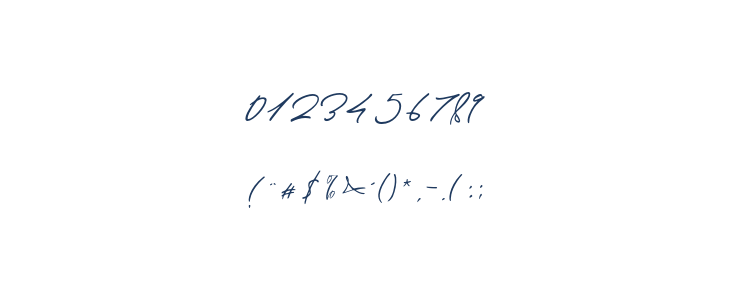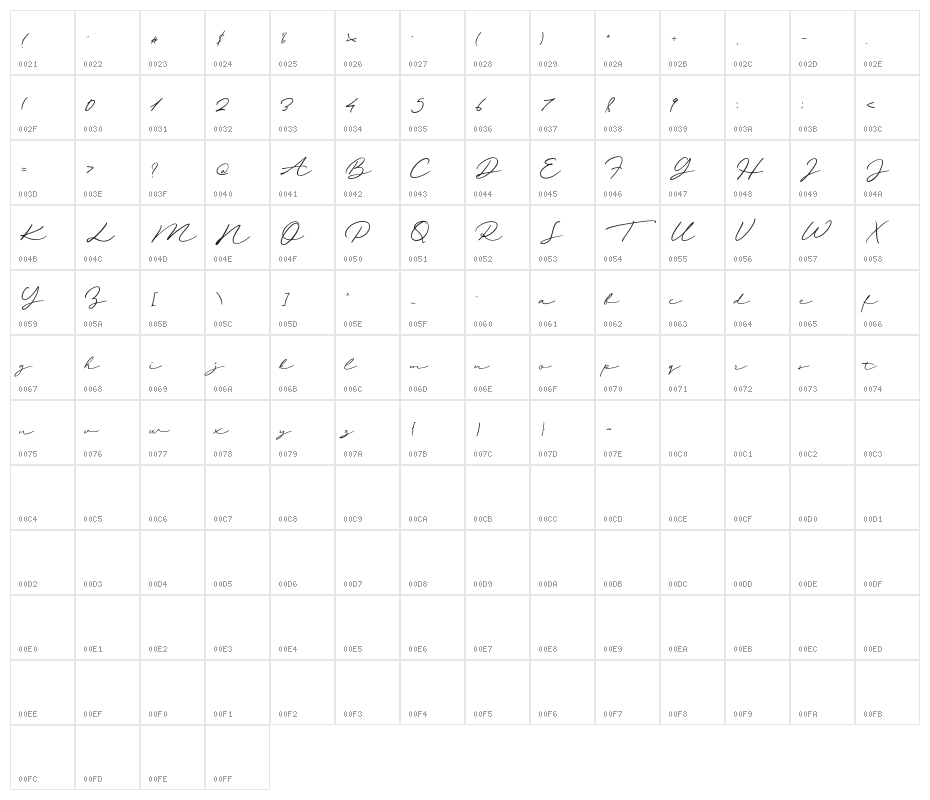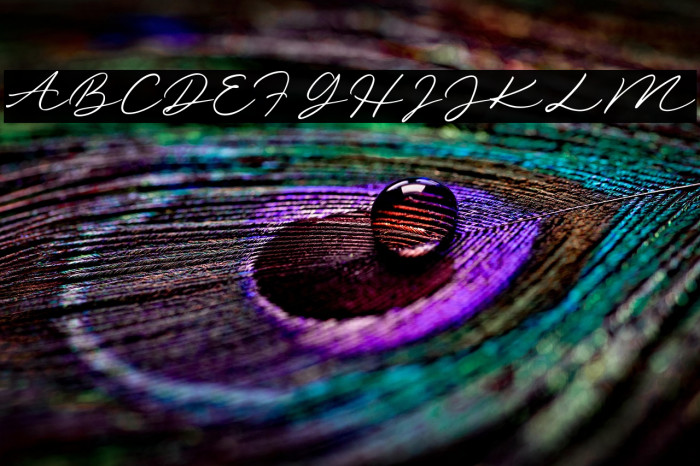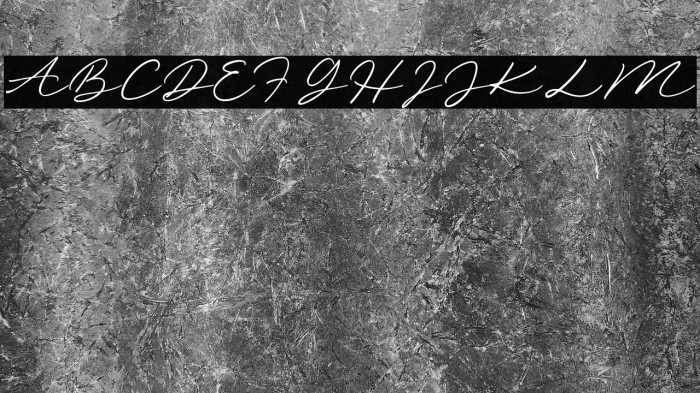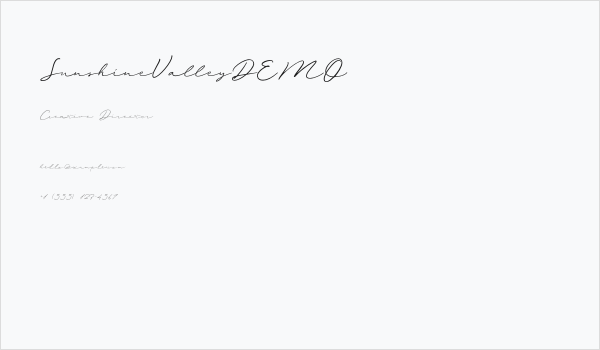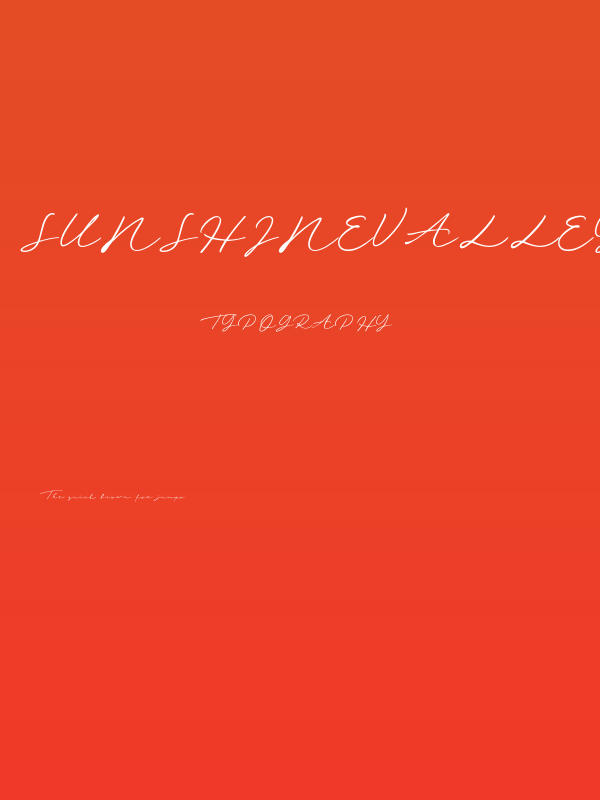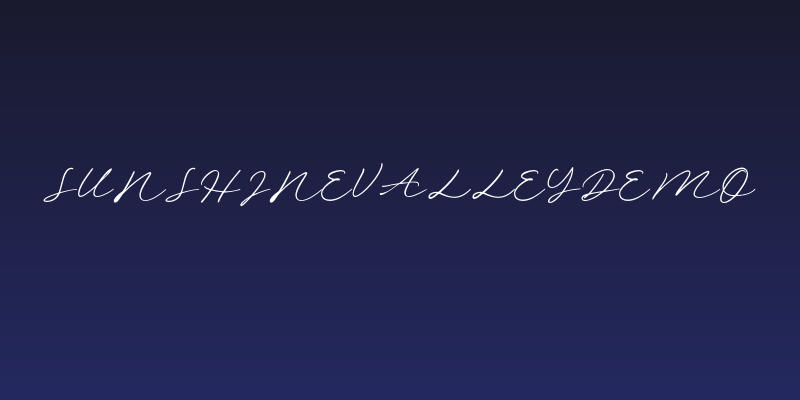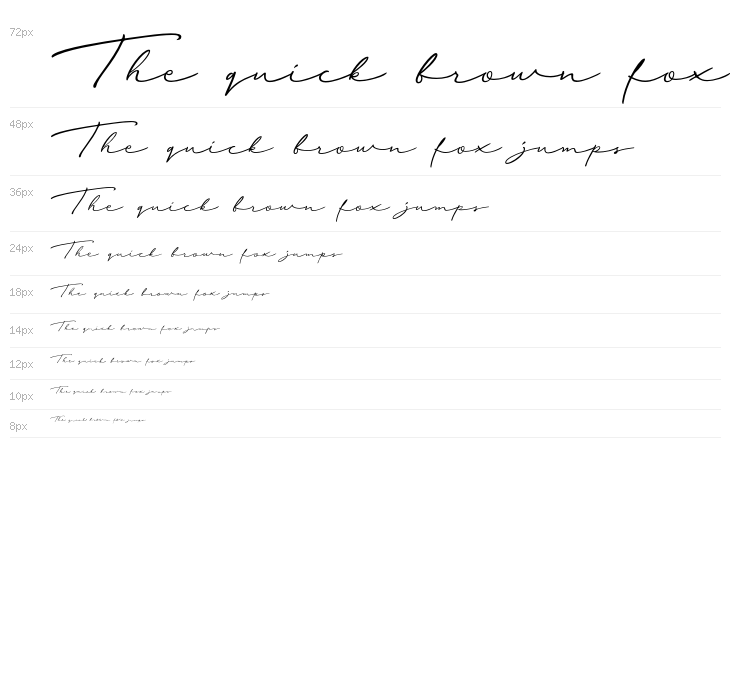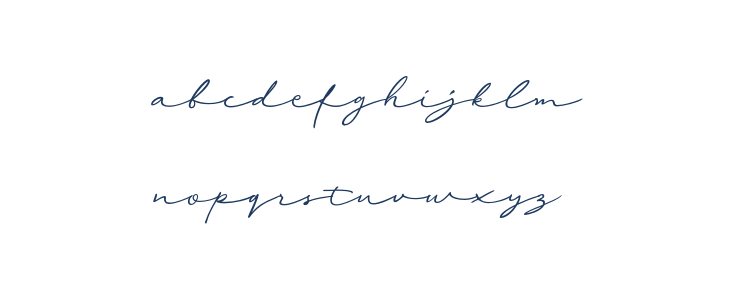
SunshineValleyDEMO Font
SunshineValleyDEMO Description
This elegant script font features a flowing, cursive style that mimics natural handwriting. The characters are connected, creating a seamless and fluid appearance. The uppercase letters are slightly more embellished, with graceful loops and curves, while the lowercase letters maintain a consistent, smooth flow. The numerals and special characters are designed to match the overall aesthetic, providing a cohesive look. This font exudes a sense of sophistication and charm, making it ideal for projects that require a personal touch.
| Overall Style | Elegant, Handwritten |
| Use Case | Logos, Invitations, Personal Correspondence |
| Proposed Projects | Wedding invitations, greeting cards, personal branding, and elegant stationery. |